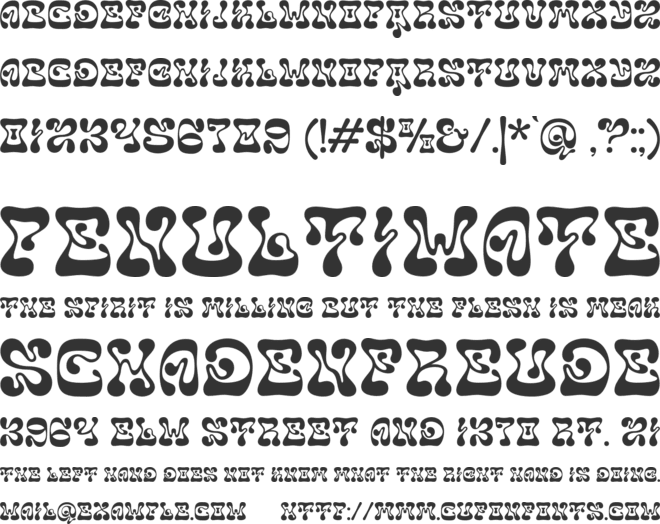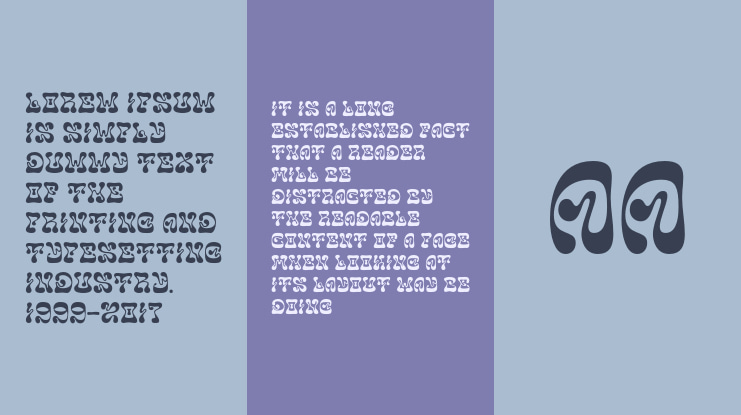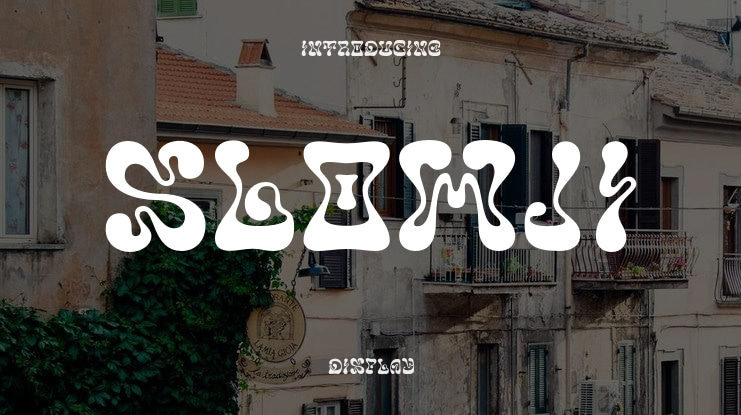
Slowji Font Family
Slowji is a psychedelic liquid font with trippy shapes and alternate glyphs — perfect for experimental posters, music art, and creative branding.